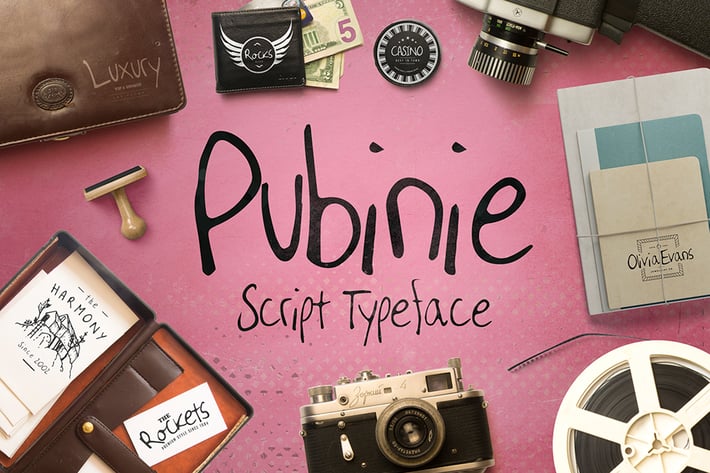
Pubinie Script Typeface
The font is created very delicately and uses thin lines. Because of this the font feels very clean and neat, but it still has a playful hand-crafted feeling to it.